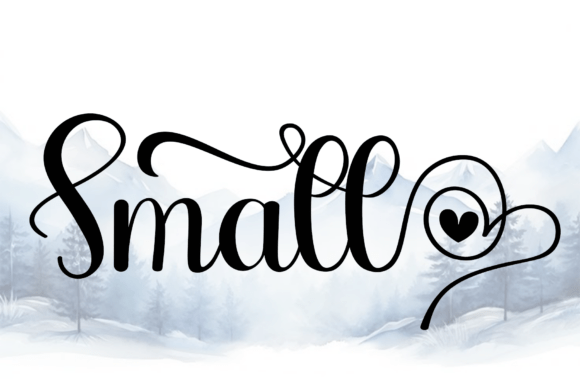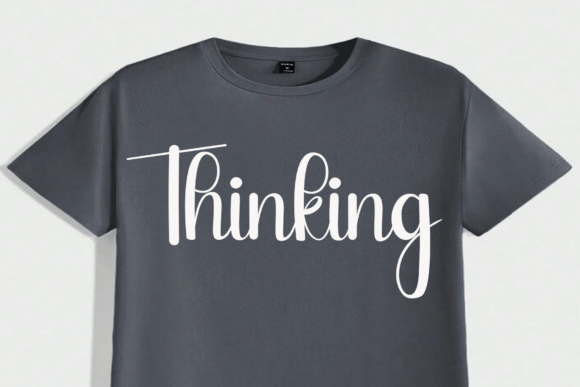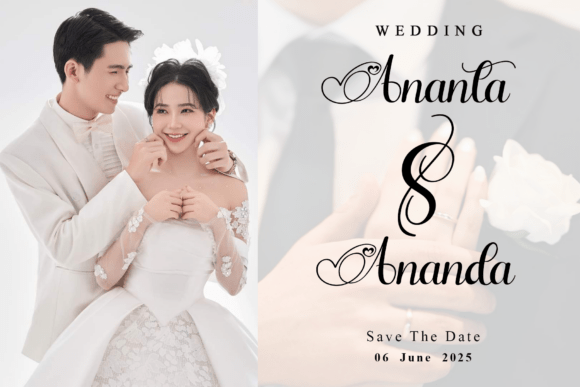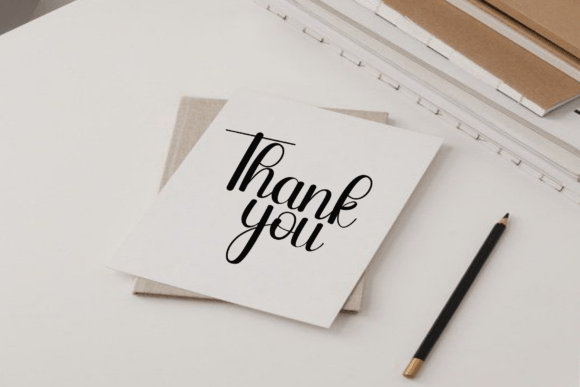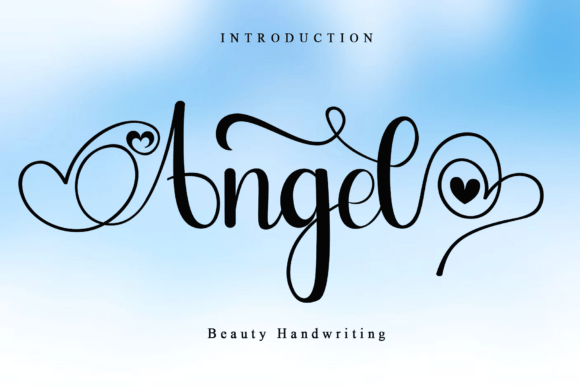
Introducing Angel Font: The Epitome of Elegance and Sophistication
In the realm of typography, few fonts manage to capture the essence of charm and sophistication as effortlessly as Angel Font. This beautifully flowing script font has been turning heads with its smooth curves and impeccable handwritten feel, making it a go-to choice for designers and crafters seeking to infuse their projects with a touch of elegance.
The Characteristics of Angel Font
Angel Font is distinguished by its fluid strokes and graceful letterforms, which lend it an air of romance and luxury. Its design is characterized by:
- Smooth Curves: The font features beautifully smooth curves that contribute to its elegant appearance, making it perfect for designs that require a sophisticated touch.
- Handwritten Feel: Despite its polished look, Angel Font retains a subtle hint of handwriting, adding warmth and personality to any text.
- Versatility: Its versatile nature allows it to be used across a wide range of applications, from formal to informal settings.
Ideal Uses for Angel Font
The versatility of Angel Font makes it suitable for various design projects. Some of the ideal uses include:
- Wedding Invitations: The font’s romantic and elegant vibe makes it a perfect fit for wedding invitations, setting the tone for a sophisticated and memorable event.
- Personal Branding: For professionals and businesses aiming to project an image of luxury and refinement, Angel Font can be a valuable asset in creating a distinctive brand identity.
- Elegant Packaging: Whether it’s for high-end cosmetics, gourmet foods, or luxury goods, Angel Font can add a touch of class and sophistication to product packaging.
- Romantic Quotes: Designers and writers can use Angel Font to give romantic quotes a visually appealing and heartfelt presentation, perfect for social media posts, blogs, or printed materials.
Tips for Using Angel Font Effectively
To maximize the impact of Angel Font in your designs, consider the following tips:
- Pair with Complementary Fonts: When combining Angel Font with other typefaces, choose fonts that complement its elegance without overpowering it. Simple sans-serifs or classic serifs often work well.
- Adjust Letter Spacing: For optimal readability, especially in longer texts, adjust the letter spacing to ensure that the elegant flow of the font is maintained without compromising clarity.
- Utilize Font Weights: If Angel Font comes in multiple weights, experiment with them to create visual hierarchy in your designs, reserving the lighter weights for body text and the heavier weights for headings.
Angel Font stands out as a premier choice for designers and crafters looking to imbue their projects with a sense of charm, elegance, and sophistication. Its smooth curves, handwritten feel, and versatility make it an invaluable tool in the world of design. Whether you’re creating wedding invitations, crafting a personal brand, designing elegant packaging, or sharing romantic quotes, Angel Font is sure to elevate your work to new heights of aesthetic appeal and emotional resonance.
In the hands of creative professionals, Angel Font has the potential to transform ordinary designs into extraordinary experiences. So, embrace the beauty and sophistication that Angel Font has to offer, and let your designs speak with the voice of elegance and refinement.